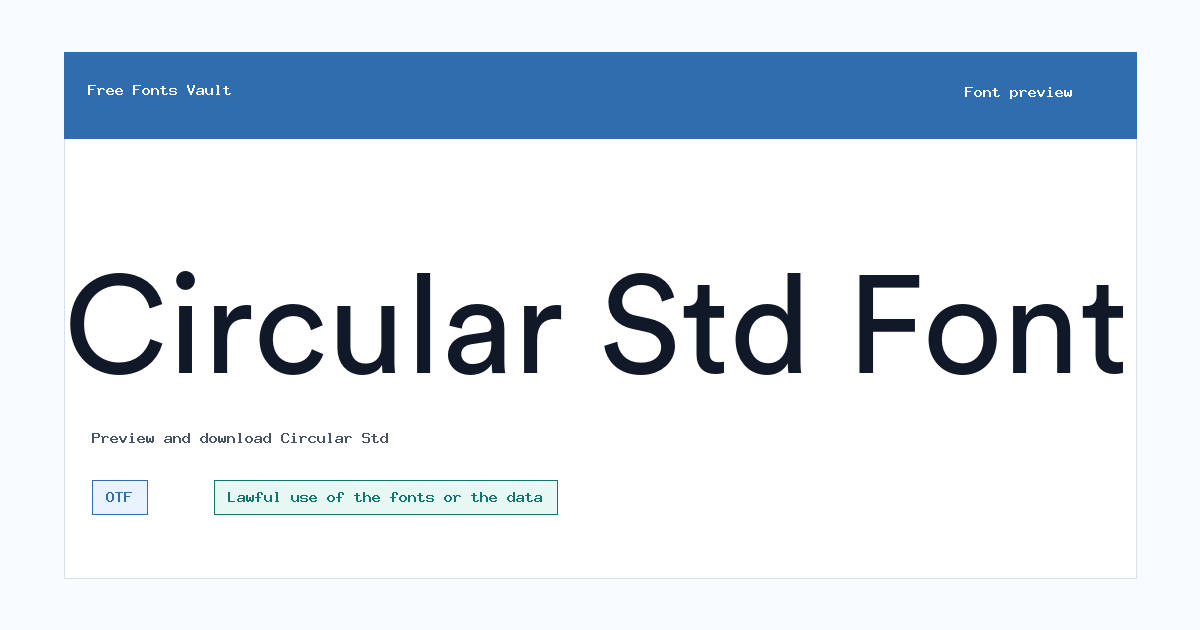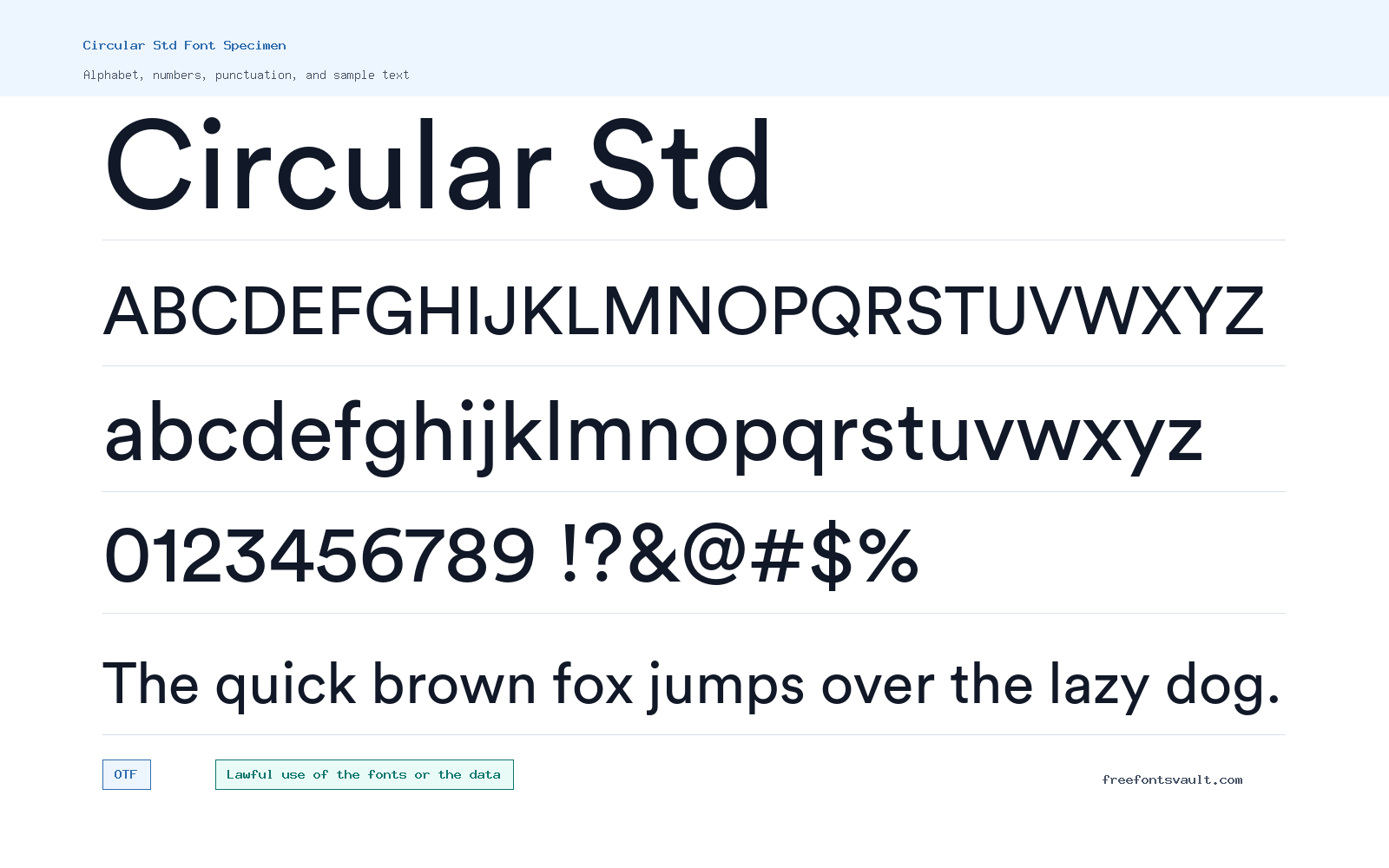
Circular Std
- Designer Laurenz Brunner
- Foundry Lineto
Circular Std font.
Circular Std is a clean geometric sans serif from Lineto, associated with designer Laurenz Brunner. Its round shapes, steady rhythm, and plain letterforms make it useful for testing modern headings, interface text, and brand-style layouts.
About Circular Std
Circular Std has the calm, structured look people expect from a geometric sans serif, but it stays practical rather than decorative. The letters feel rounded and even, with a simple tone that works well in short blocks of text, navigation labels, titles, and clean editorial layouts. If you are previewing it for a design, try both sentence case and all caps, because geometric fonts can change character quickly depending on spacing and size.
- Geometric sans serif appearance with rounded forms and a clean reading rhythm.
- Website headings, app mockups, navigation labels, cards, and clean landing page sections.
- Brand-style previews, short editorial titles, social graphics, and simple poster layouts.
Circular Std is connected with Laurenz Brunner and Lineto in the available font and source information.
What is Circular Std best used for?
It works best in clean, modern layouts such as headings, navigation, interface mockups, cards, brand-style previews, and short editorial text.
Who designed Circular Std?
The font information connects Circular Std with Laurenz Brunner and Lineto.